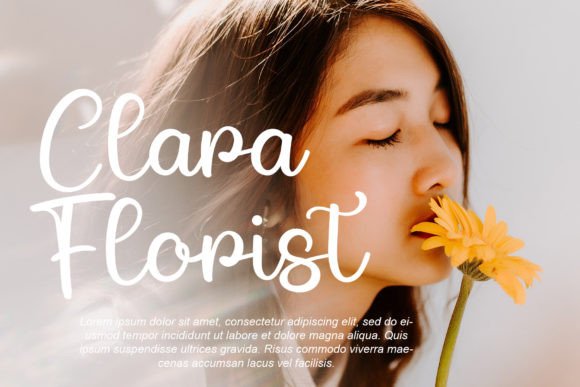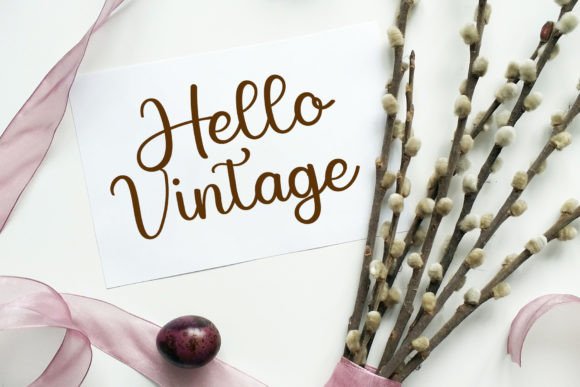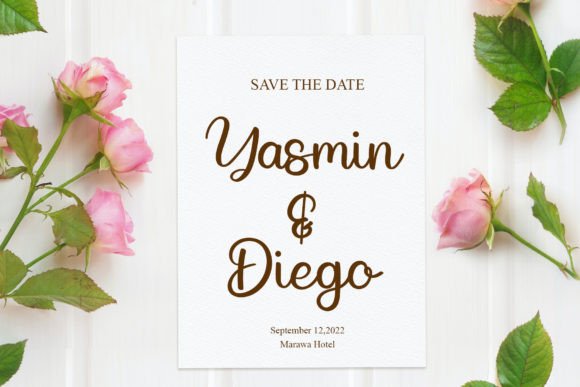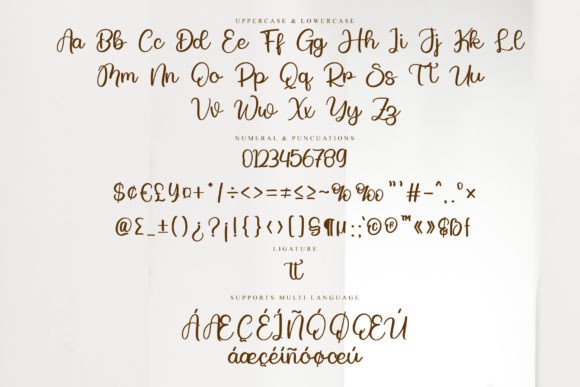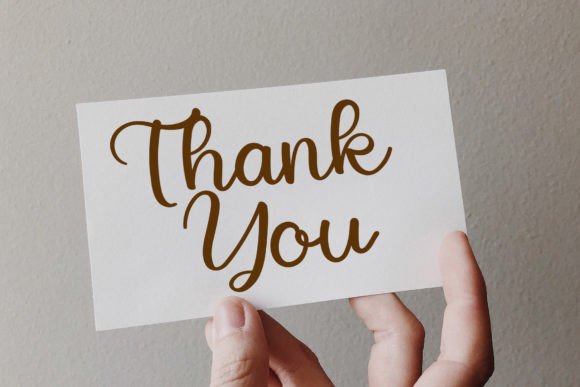
Single Font
About Single Font
**Single: A Dazzling Script Font with Intricate Detail**
Single is a captivating script font that stands out with its intricate details and neat craftsmanship. This font is a versatile addition to your font library and has the potential to elevate and enhance any creative project, regardless of the topic or theme.
The allure of Single lies in its dazzling and highly detailed script characters. Each letter is meticulously crafted to create a font that exudes elegance and sophistication. Whether you’re working on a formal document, a creative project, or anything in between, Single adds a touch of refinement that enhances your work.
This font’s versatility makes it a valuable asset for various design contexts. It can be used to create eye-catching headlines that demand attention, infuse elegance into branding materials, or add a touch of creativity to your projects. Its intricate details ensure that your designs stand out with precision and style.
In summary, Single is more than just a font; it’s a source of sophistication and detail that enhances your design projects. Its dazzling script letters make it a valuable choice for infusing elegance and refinement into your work. With Single, your creative projects will shine with a captivating and intricate charm. Choose Single, and let your designs captivate with its detailed and dazzling presence.